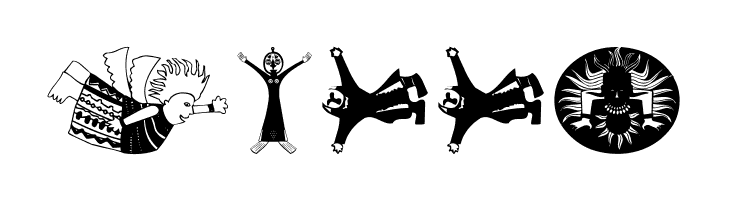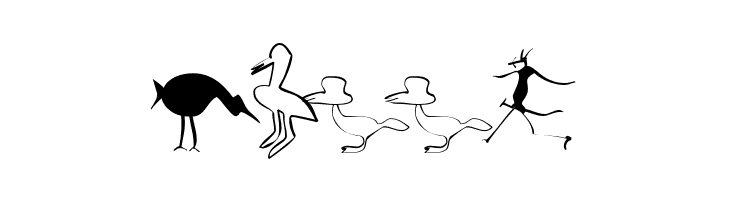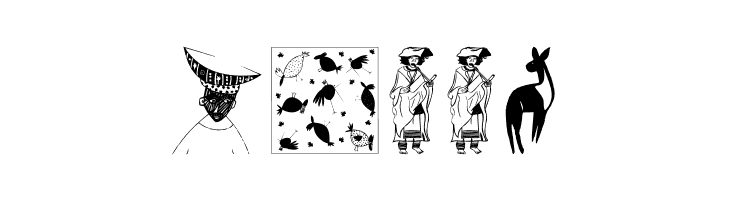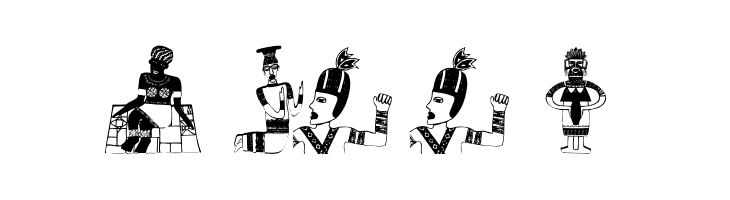
Abstract illustrations resembling tribal art, not a valid font.
A collection of artistic symbols inspired by African art, featuring intricate designs and cultural motifs.
Decorative dingbat font with African art and cultural motifs.
An artistic, pictorial font with each character as a unique illustration.
Decorative font with African and spiritual icon illustrations.
A decorative collection of symbols inspired by traditional African artifacts.
A decorative font inspired by African art, featuring intricate and stylized glyphs.
A decorative collection of African-inspired symbols and patterns.
Ornamental symbol font featuring African-inspired illustrations.
Pictographic, tribal-inspired decorative font with hand-drawn symbols in black circles.
Pictogram font featuring African tribal motifs and animals.
Bold, geometric African-inspired symbol set with high contrast.
An artistic and decorative font inspired by African art, featuring intricate and abstract designs.
Hand-drawn, illustrated font with unique portraits for each character.
Ornamental, African-inspired circular display font with bold contrast.
A decorative font featuring African-inspired symbols and illustrations.
Decorative font mimicking African cave drawing motifs.
A collection of decorative Afrocentric symbols with intricate geometric patterns.
Ornamental pictogram font with African cultural themes.